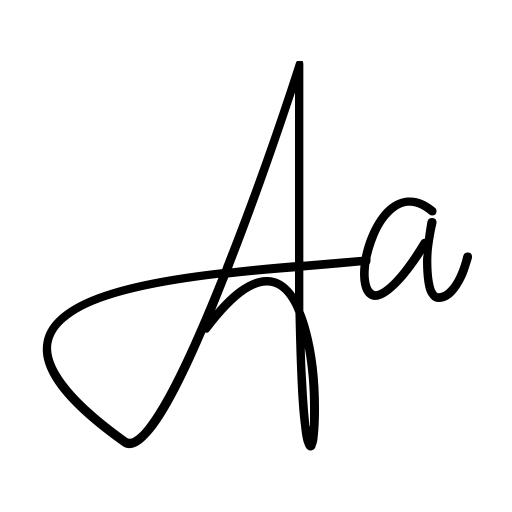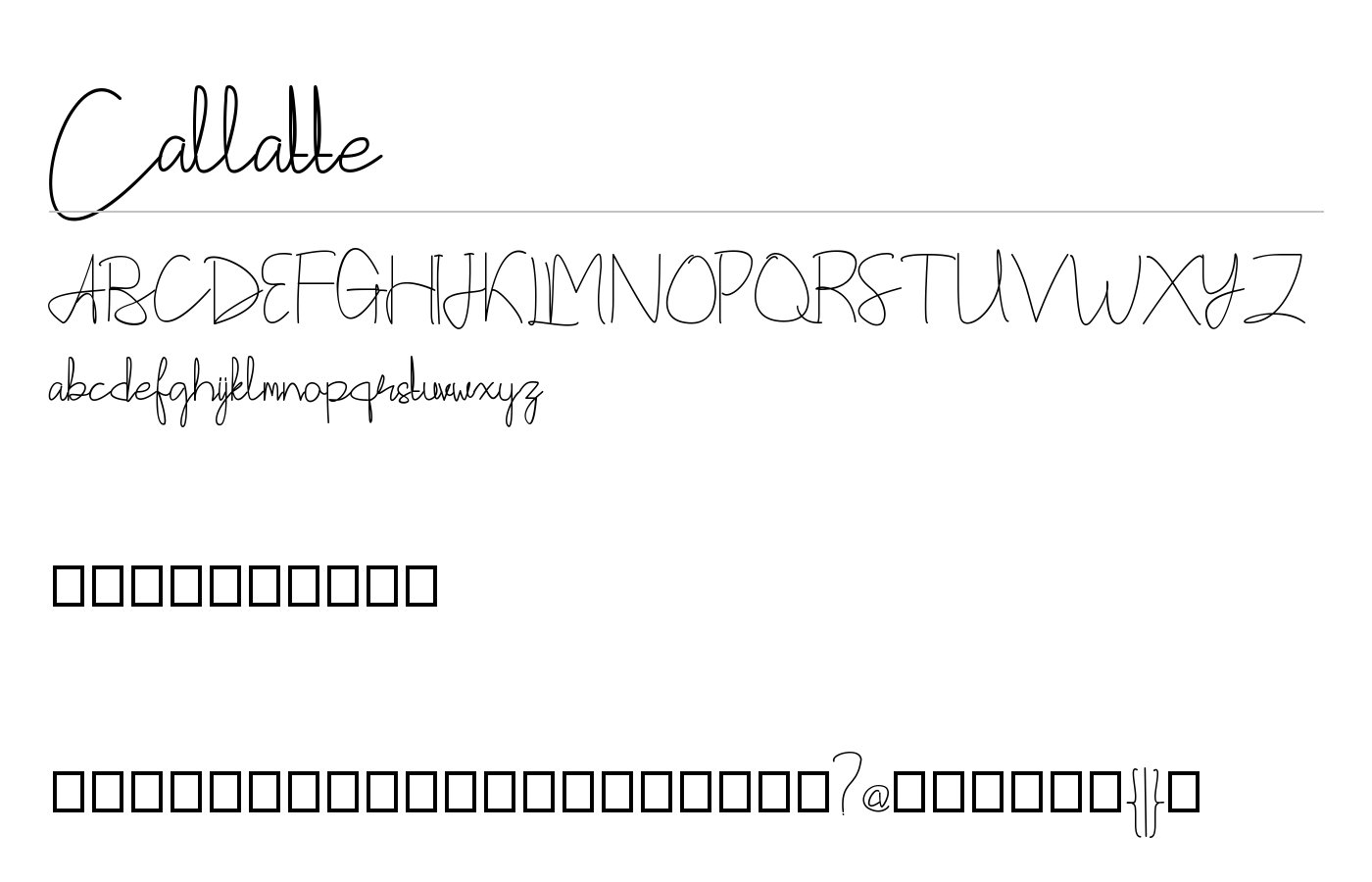
Callatte is a delicate, handwritten script font characterized by its thin, airy strokes and elegant, slightly irregular letterforms that give it a personal, artistic feel. It works beautifully for creative projects, invitations, and branding that desire a refined yet approachable touch, adding charm and sophistication without feeling stiff or formal. This font is ideal for designs seeking a unique, handcrafted style that stands out with subtle elegance.
Callatte Font
About Callatte Font